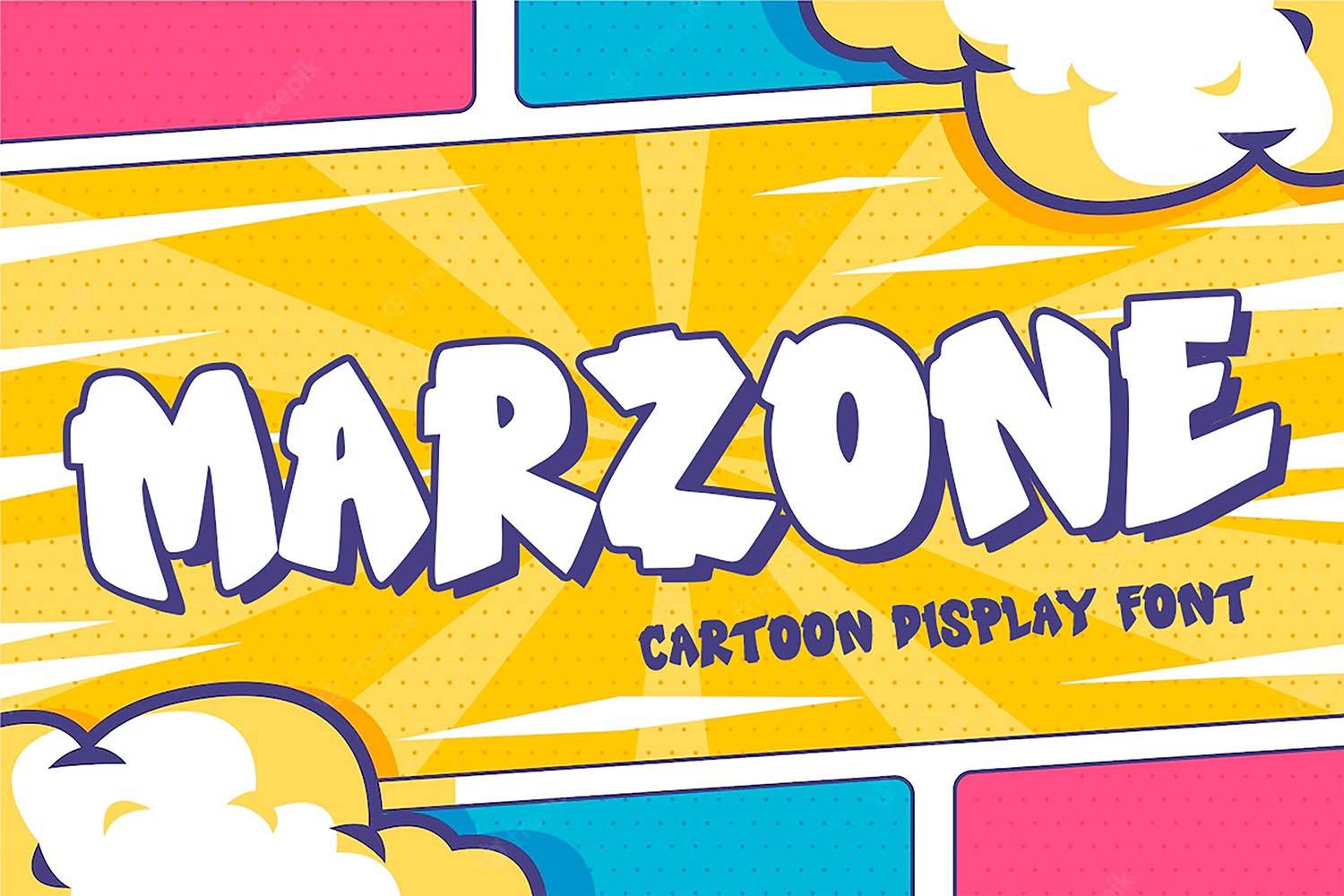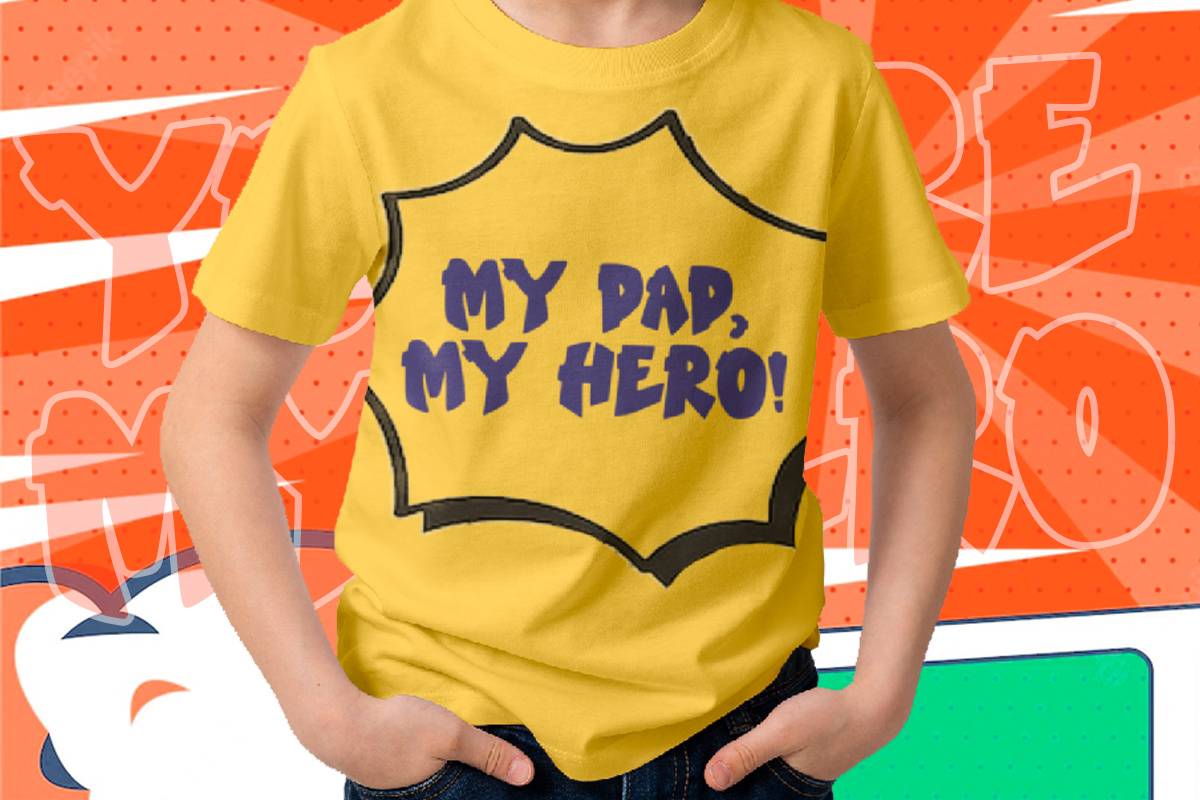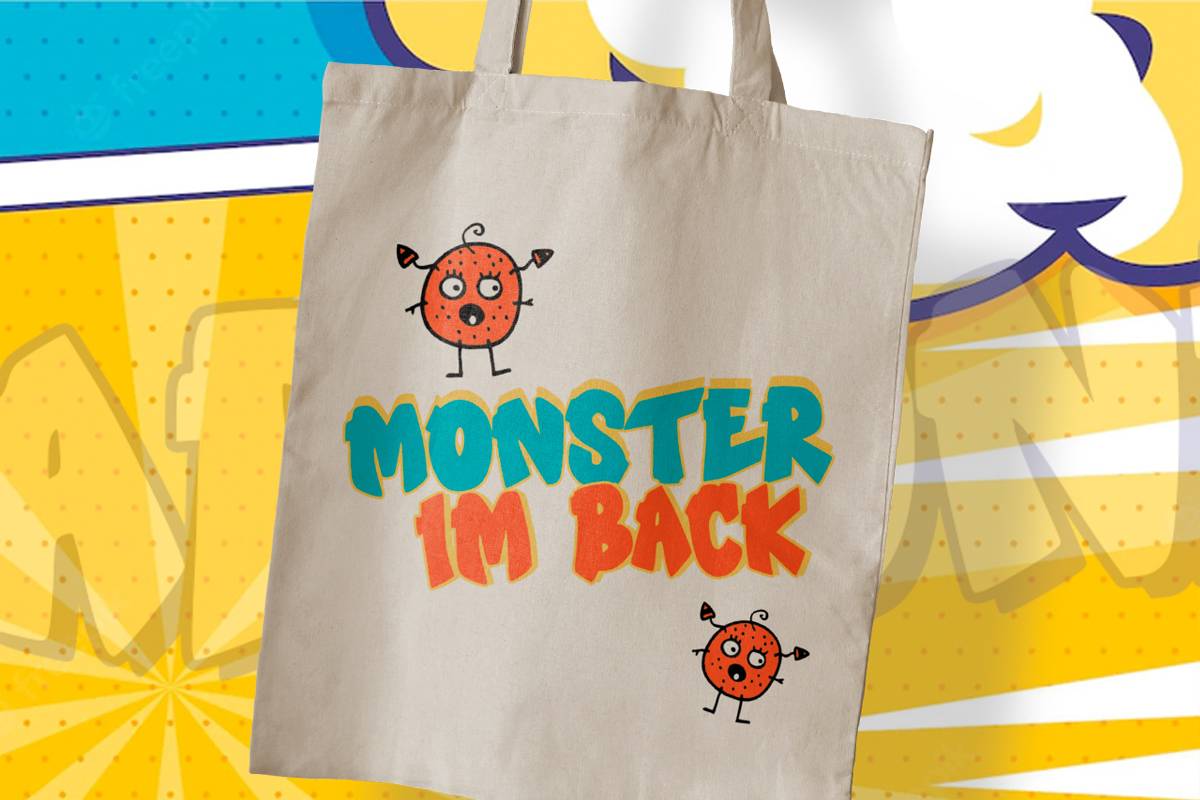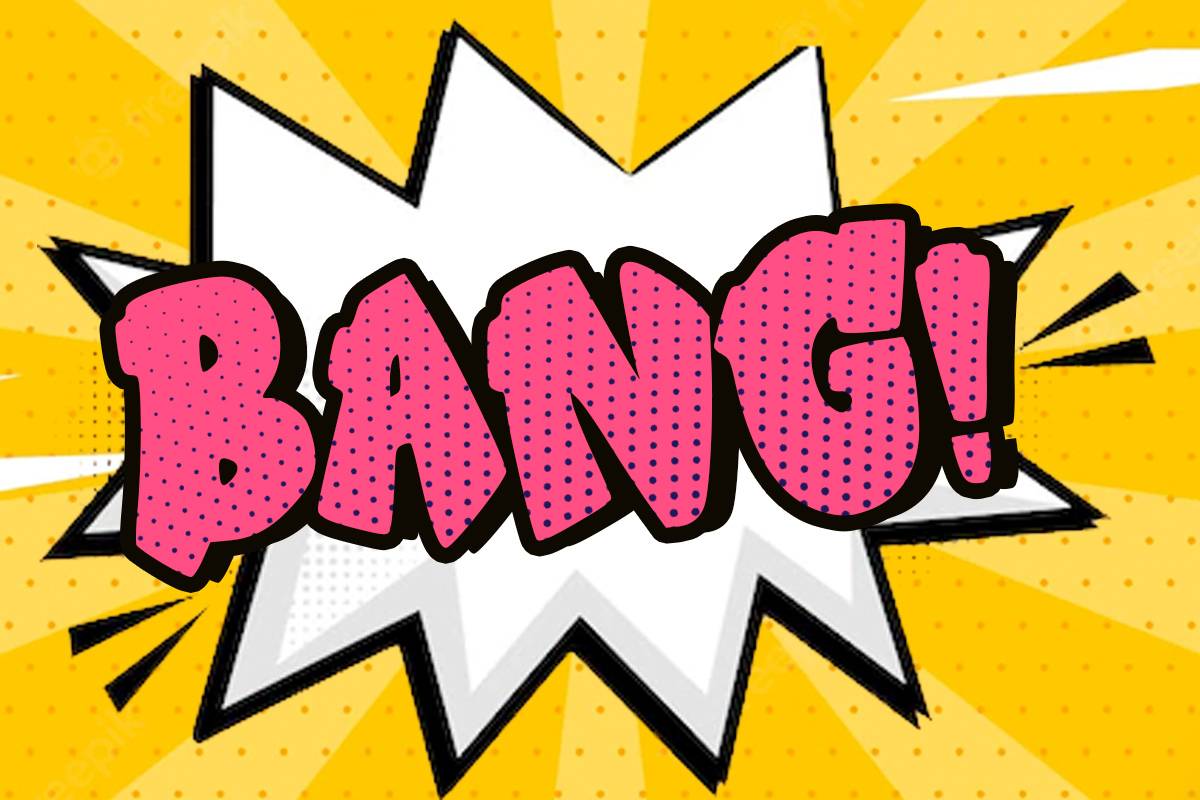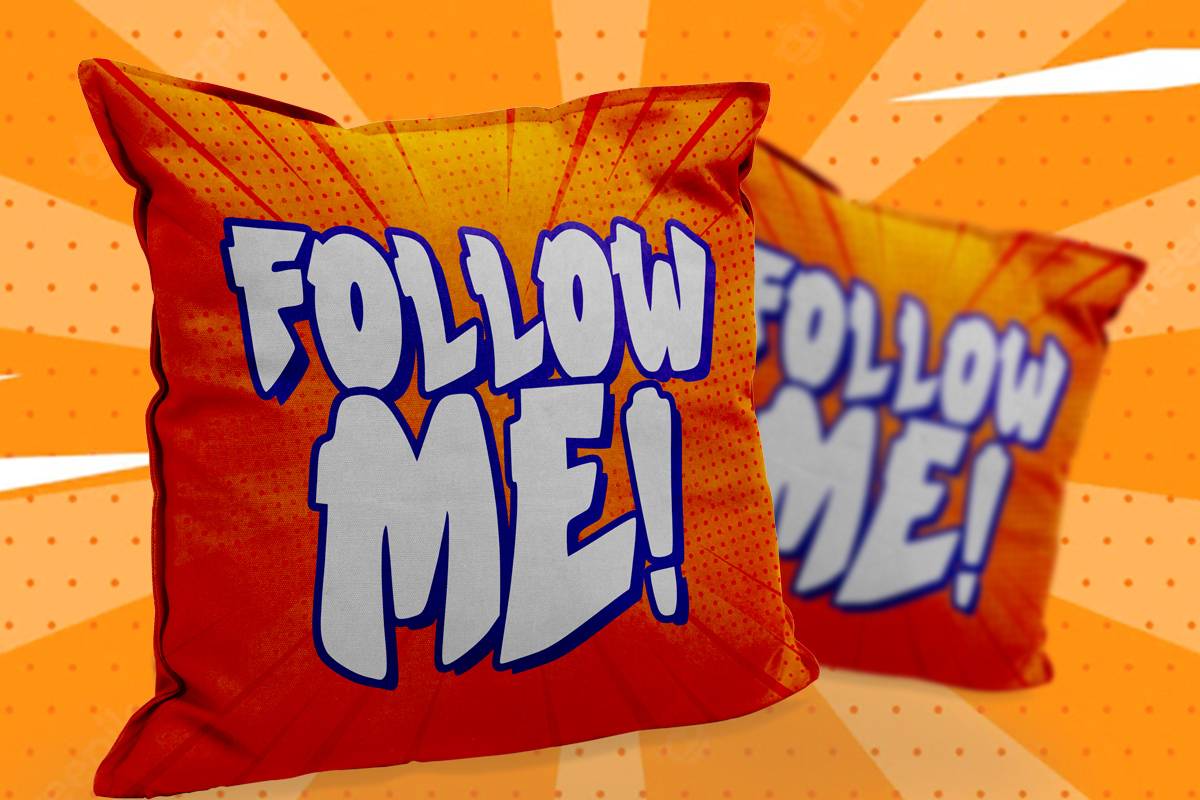
Marzone is a bold, playful display font with thick, uneven strokes and a hand-drawn, cartoonish style. Its uppercase letters have a wide, chunky appearance that conveys a fun, informal personality, making it ideal for eye-catching headlines, children’s books, or creative branding that needs a lively, energetic vibe. This font works best in casual, vibrant contexts where a strong, friendly impact is desired.
Marzone Font
About Marzone Font